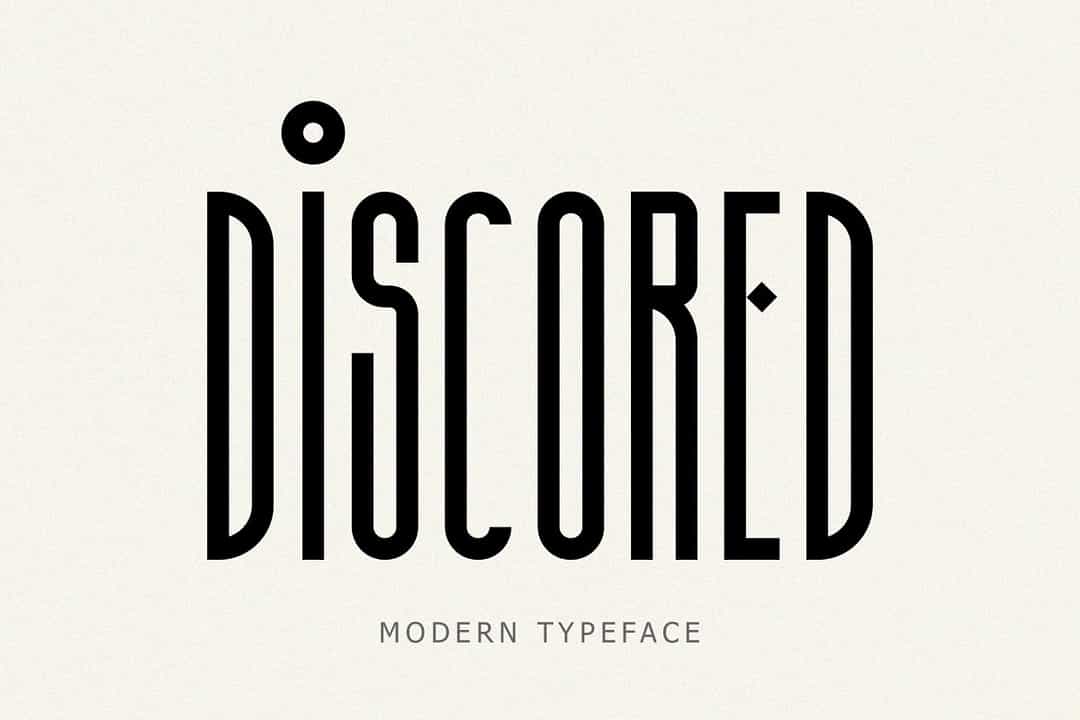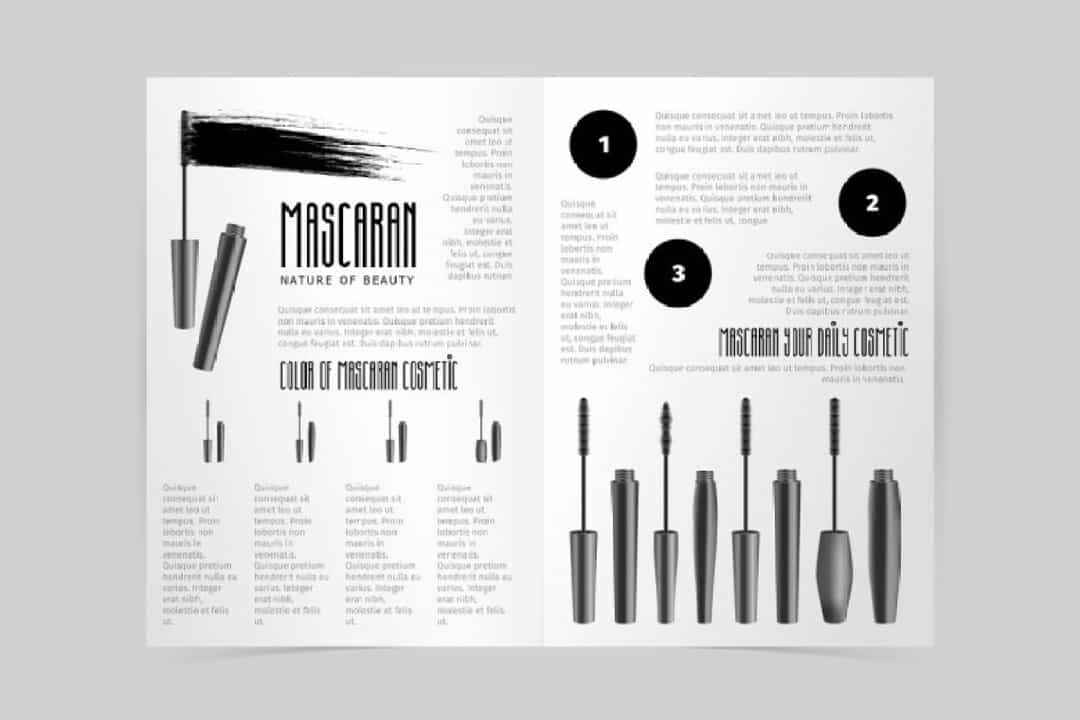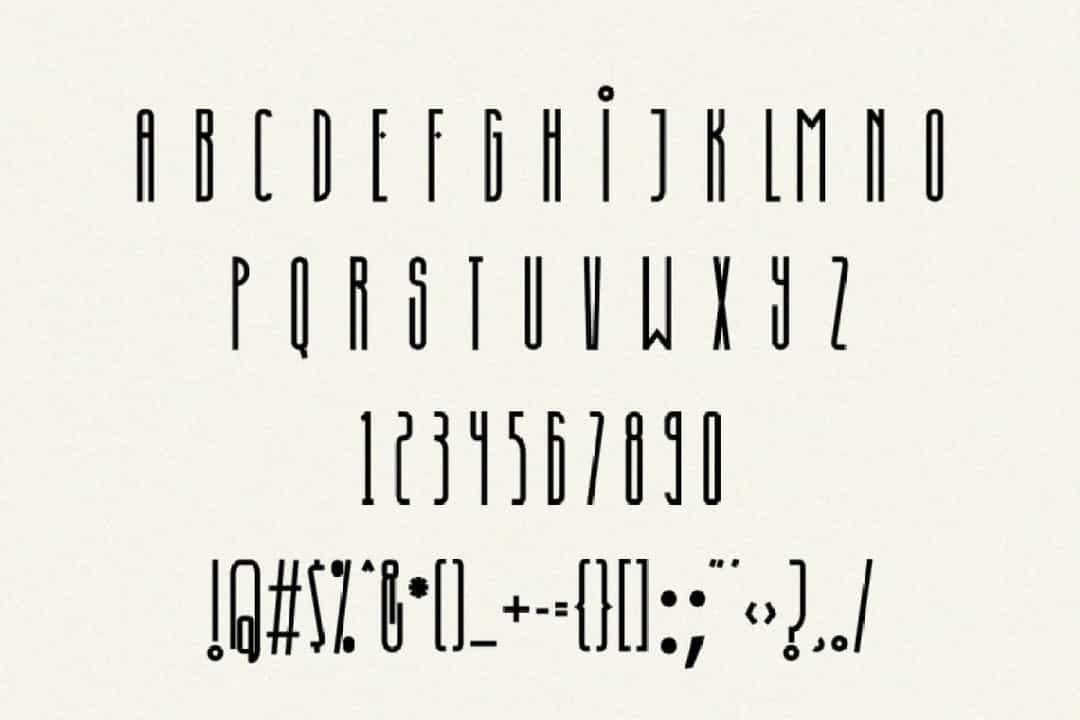
Discored is an ultra-modern sans serif font that can be most suitably used for wedding invitations, logos, T-shirt, logos, letterheads, signage, labels, and many other purposes. Discored has punctuation, uppercase letters and numbers and different variants of every character – multilingual support is available as well!